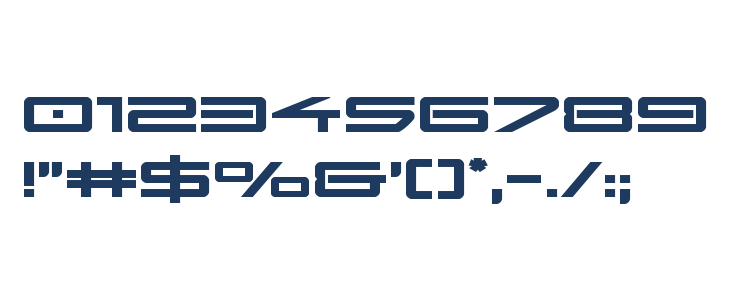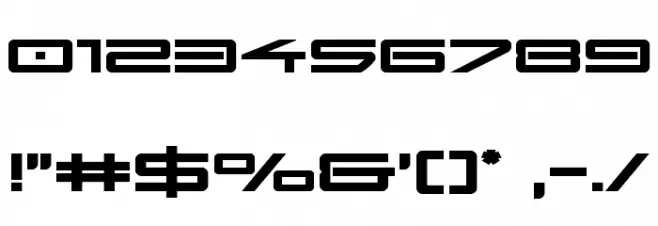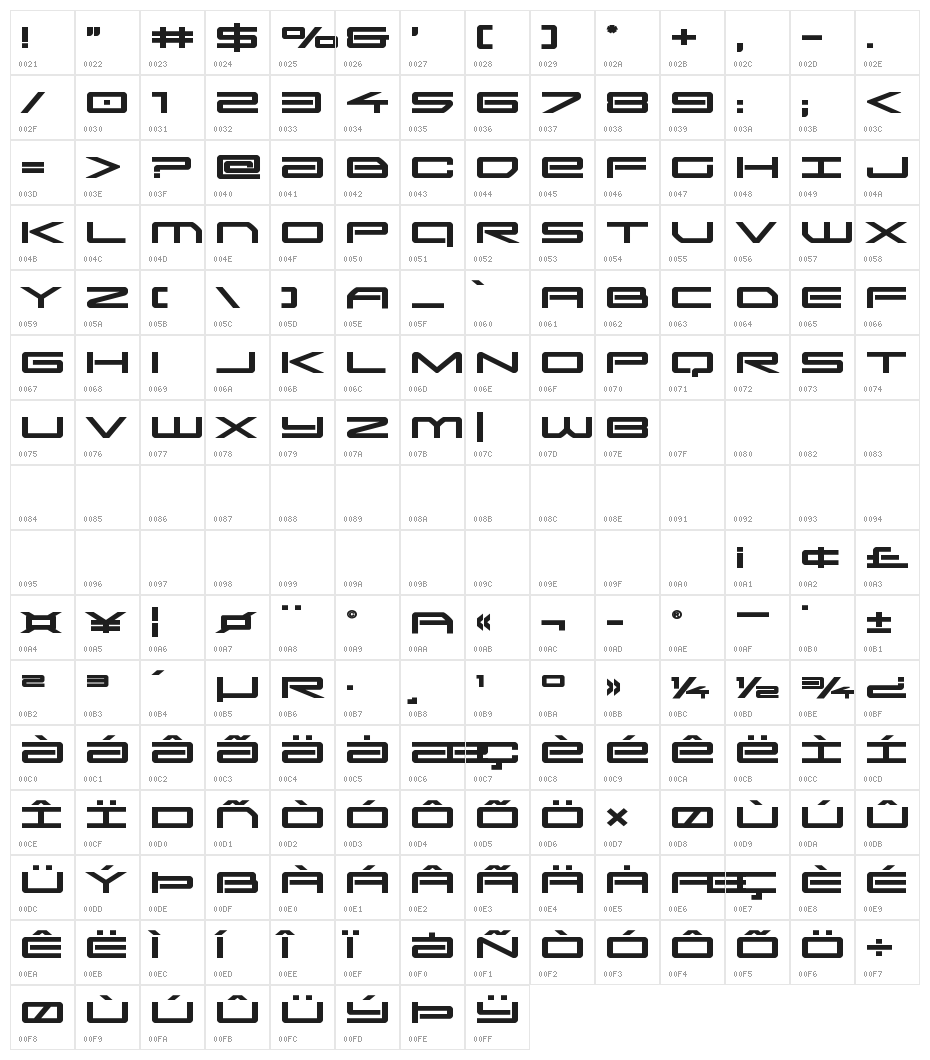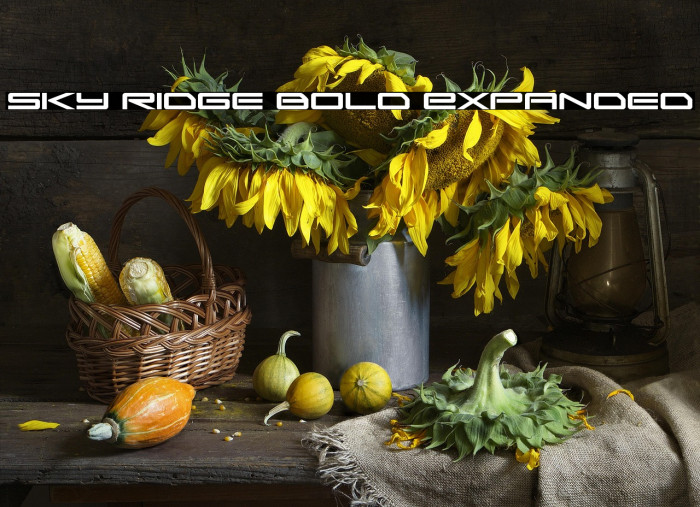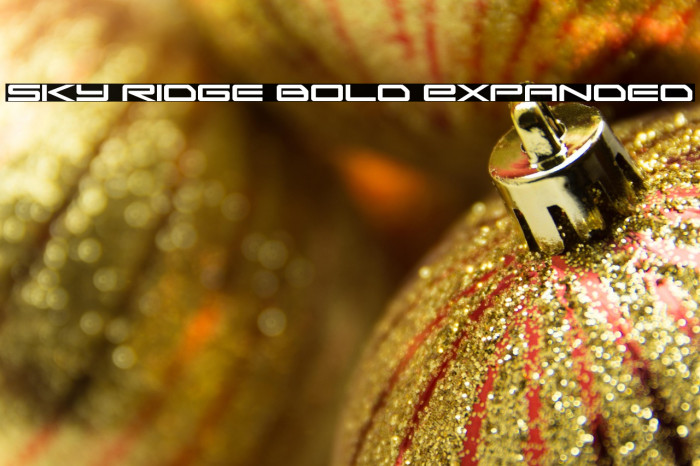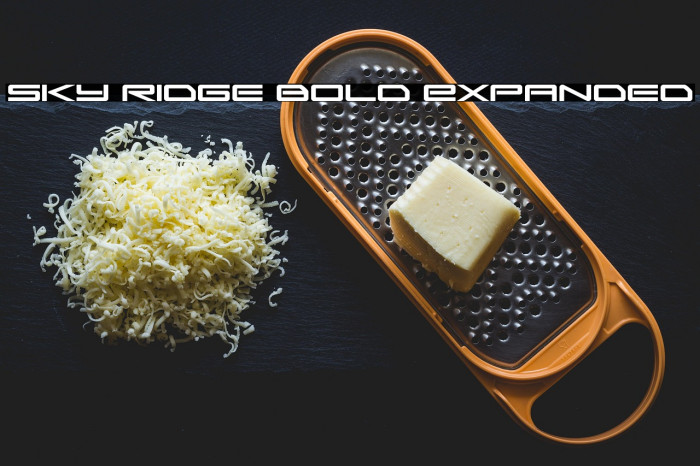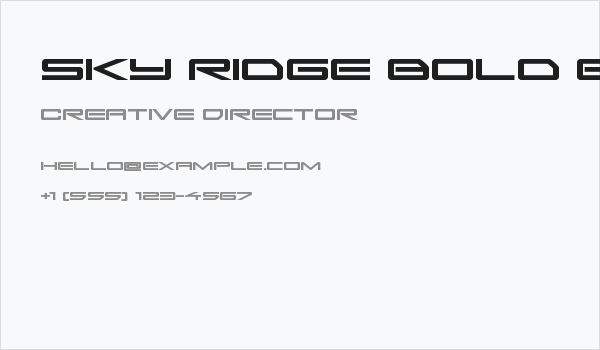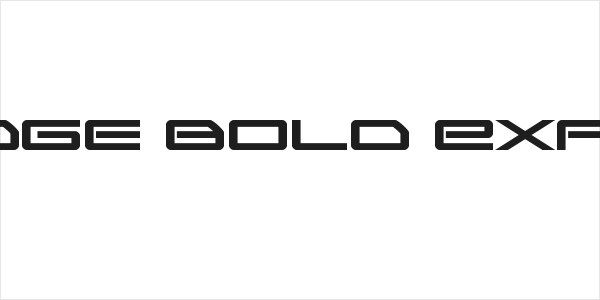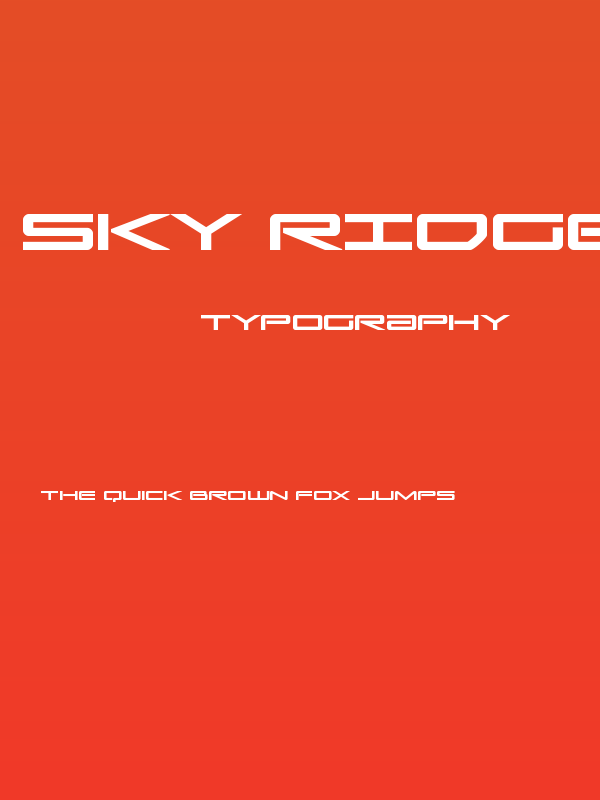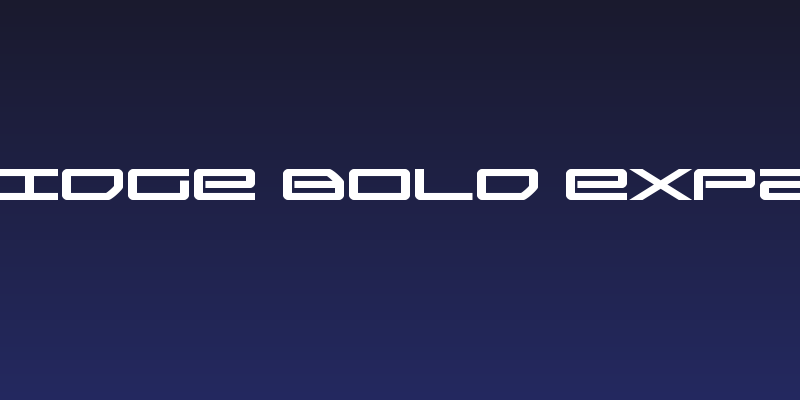
Sky Ridge Bold Expanded Font
Sky Ridge Bold Expanded Description
This font features a futuristic and geometric design with bold, expanded letterforms. The characters are constructed with straight lines and sharp angles, giving them a modern and tech-inspired appearance. The uppercase and lowercase letters maintain a consistent style, with a uniform height and width that enhances readability. The numerals and special characters are designed to match the overall aesthetic, providing a cohesive look across all glyphs. The font's bold weight and expanded width make it suitable for attention-grabbing headlines and display purposes.
| Proposed Projects | Ideal for technology branding, sci-fi posters, video game titles, and modern advertising. |